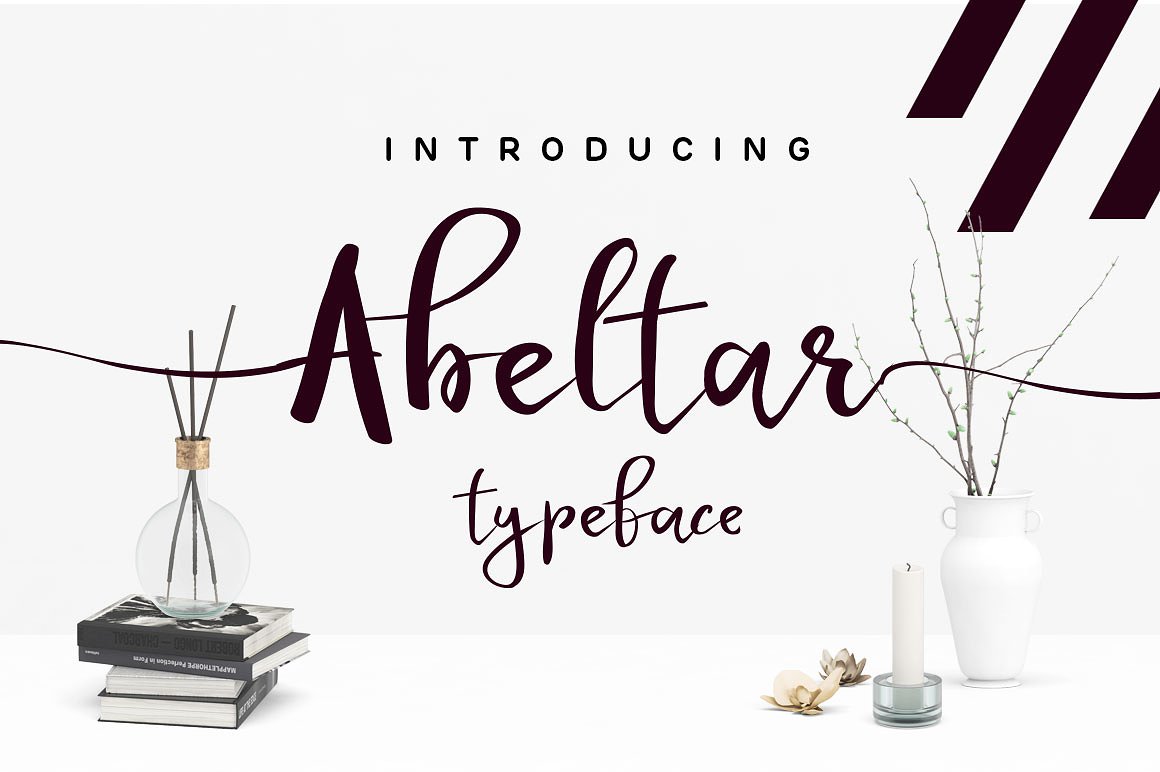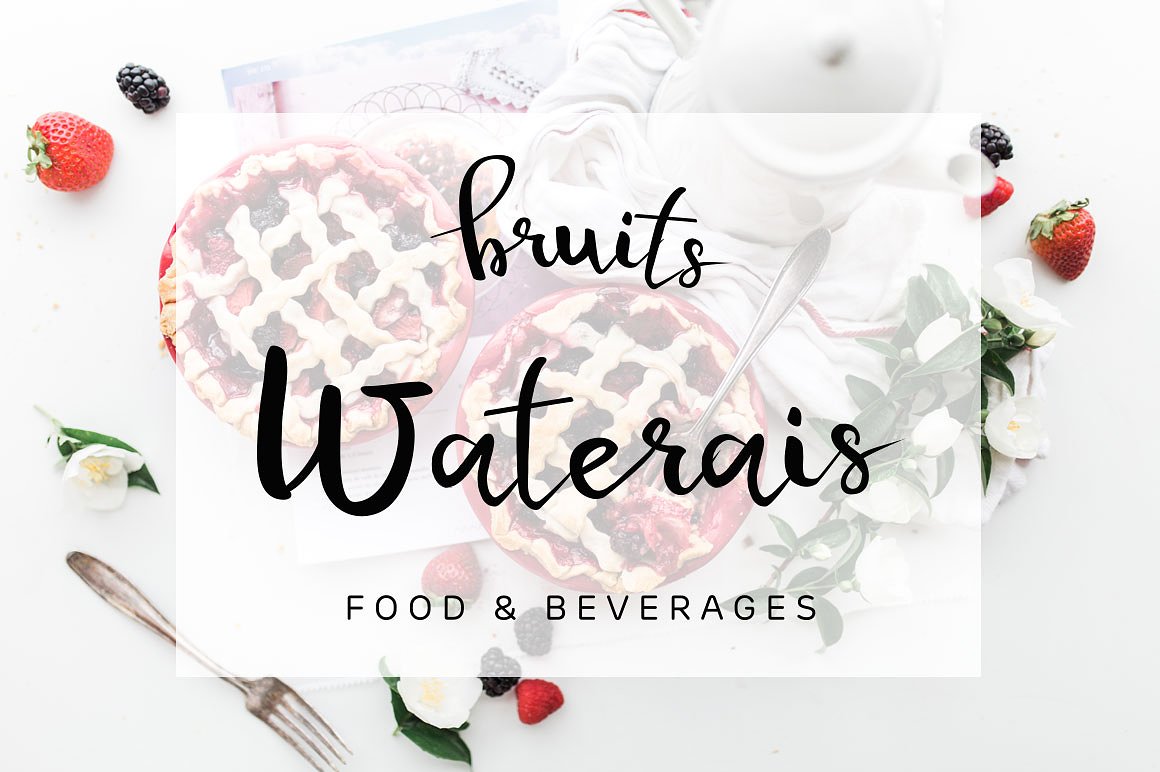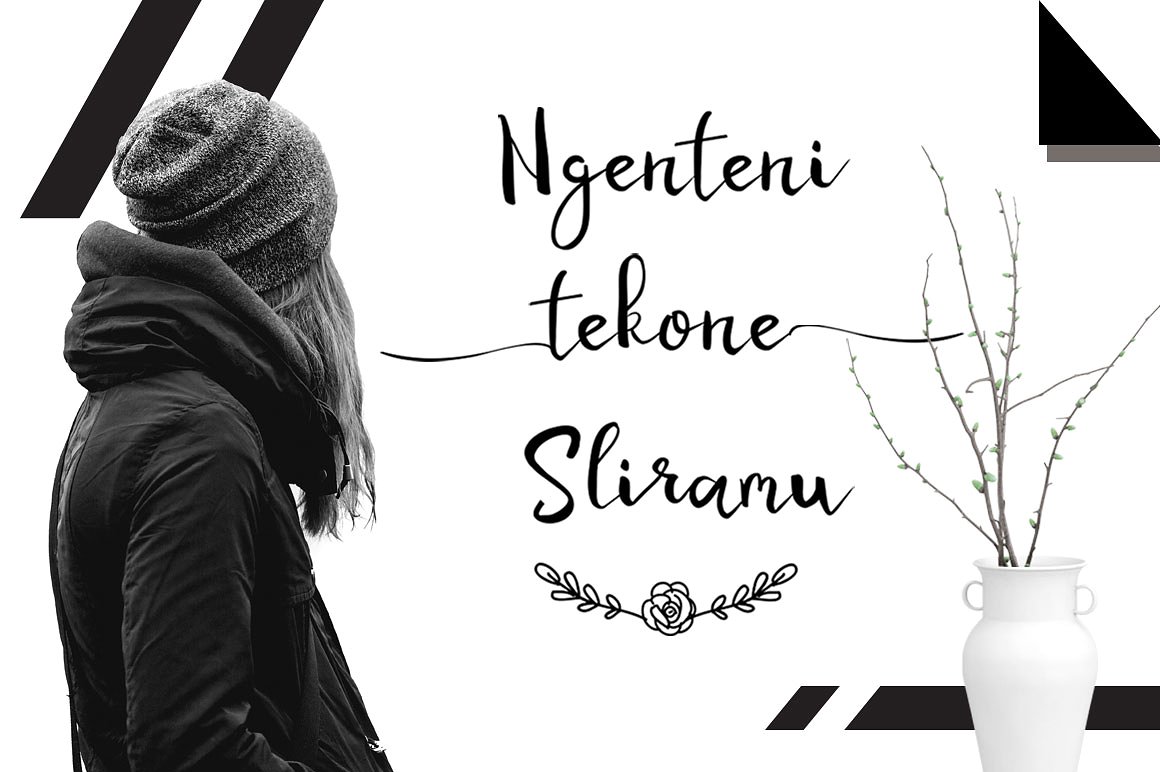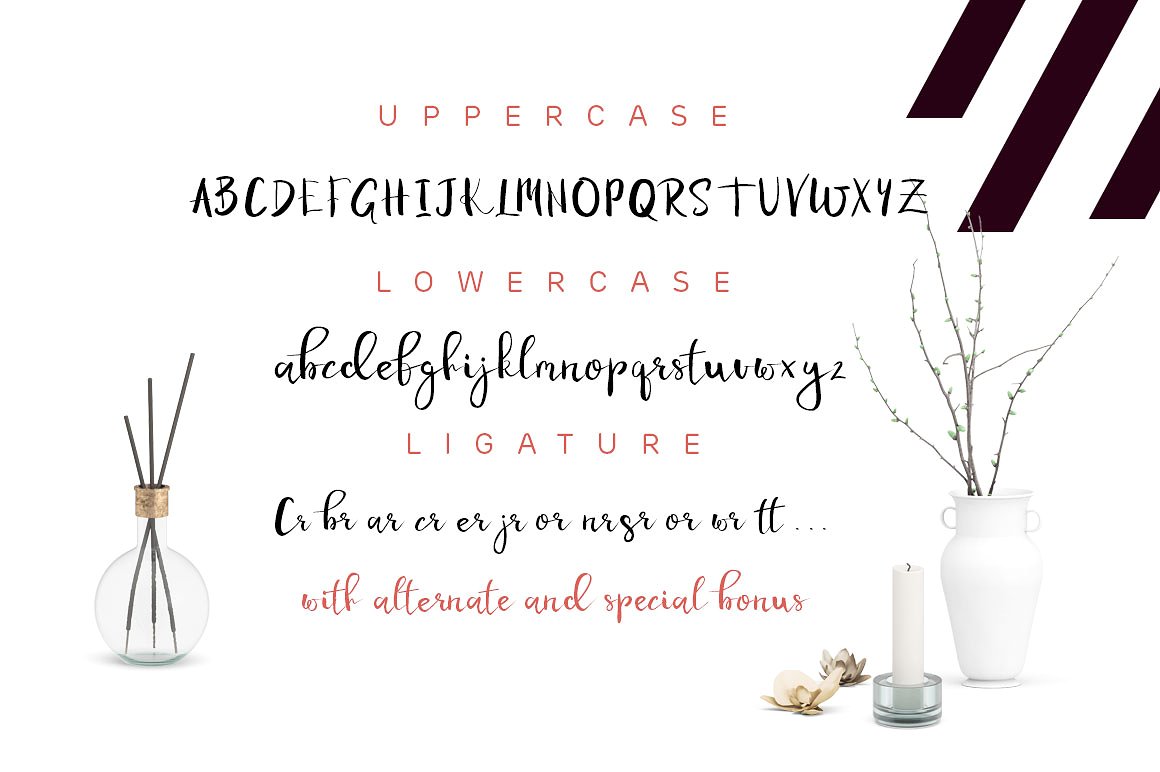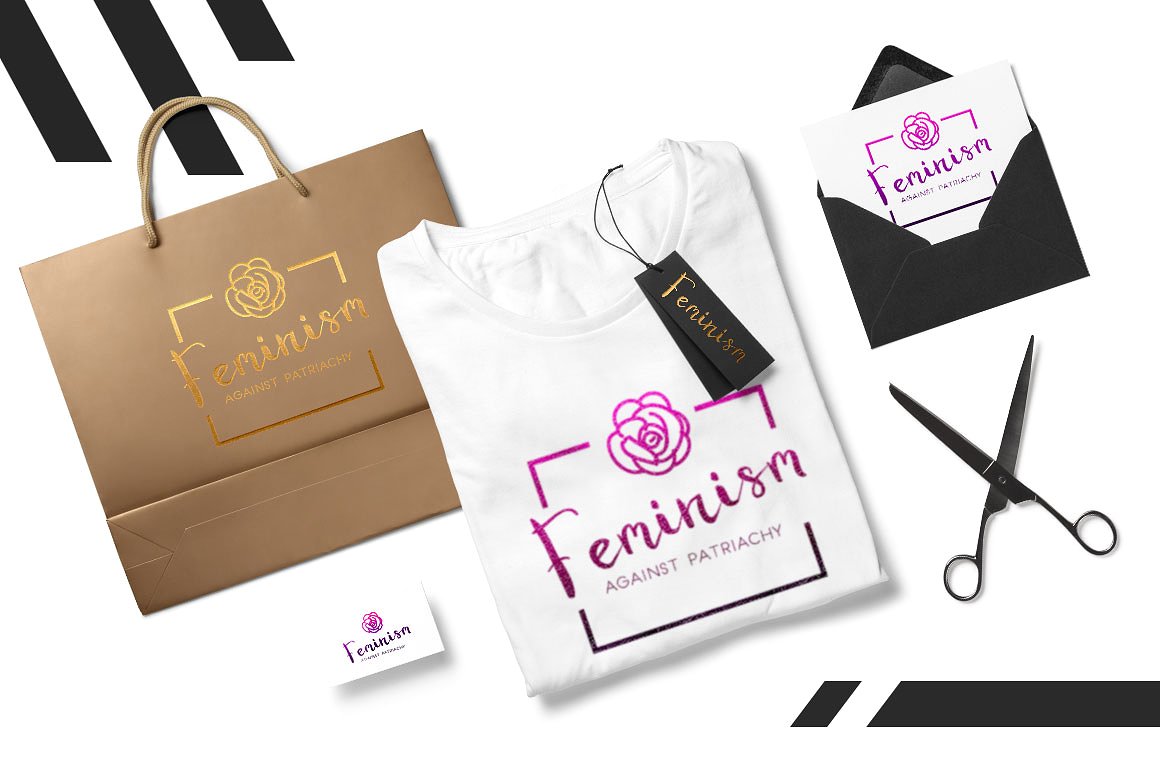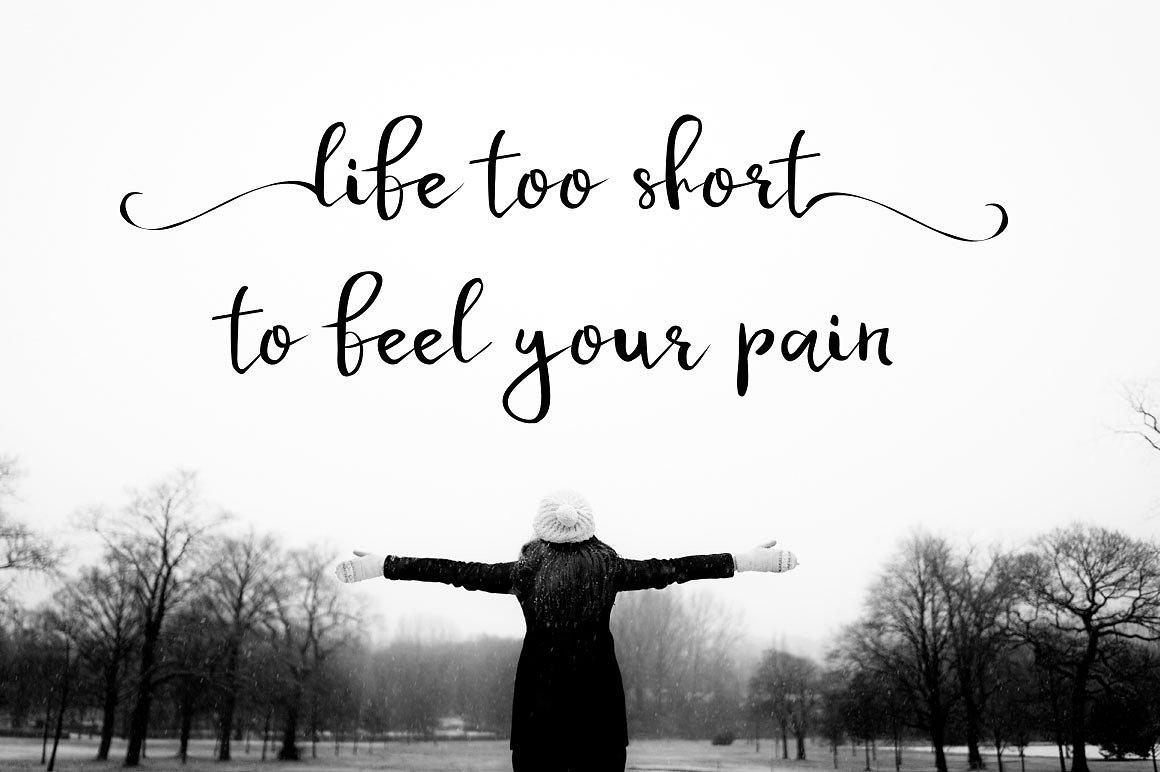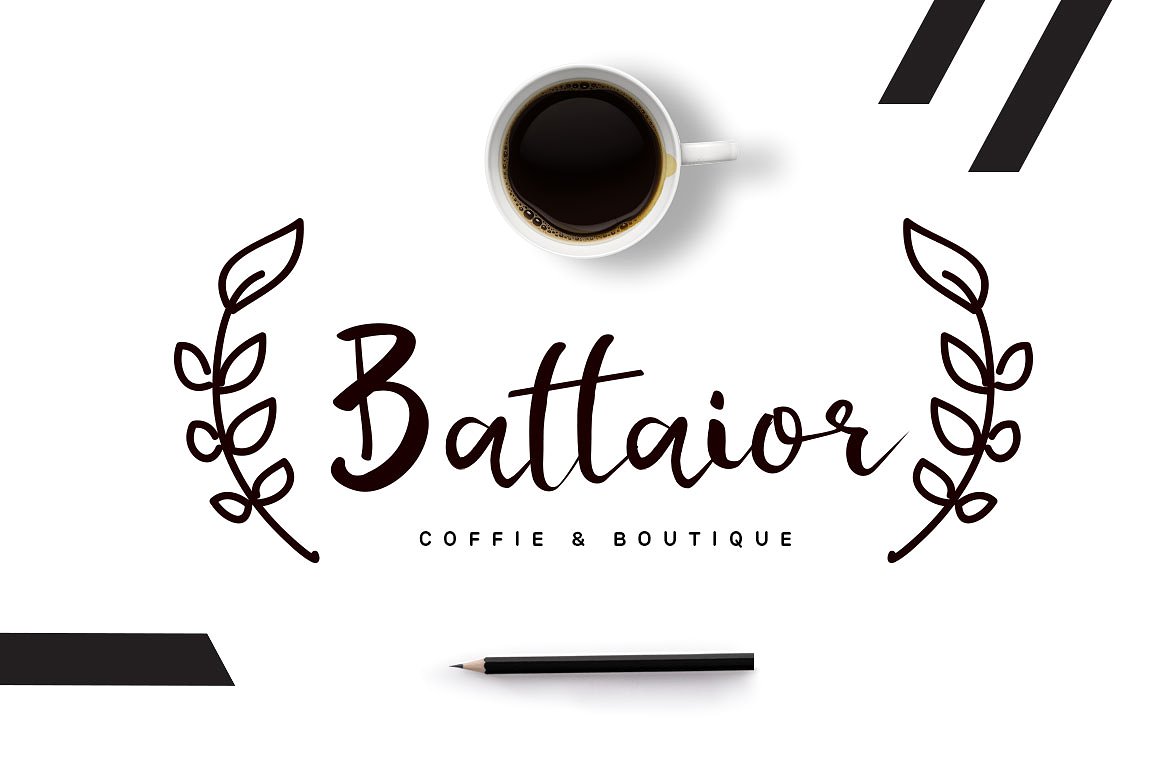
Albetar Font
About Albetar Font
Abeltar is an elegant and feminine script font, designed to emulate the feel of confidence. It’s fresh and charming, and works best for fashionable or beauty oriented creative projects.